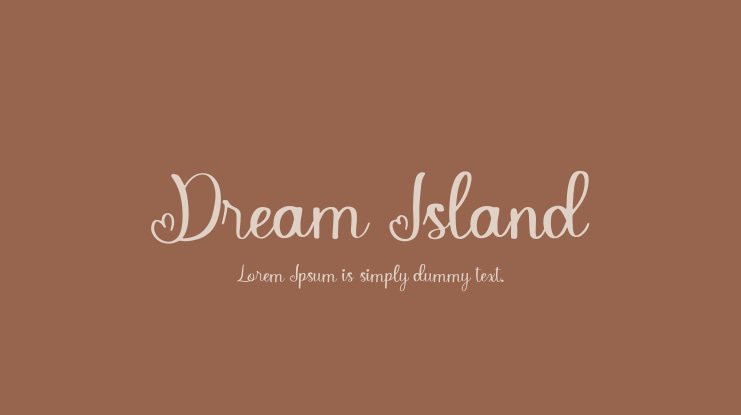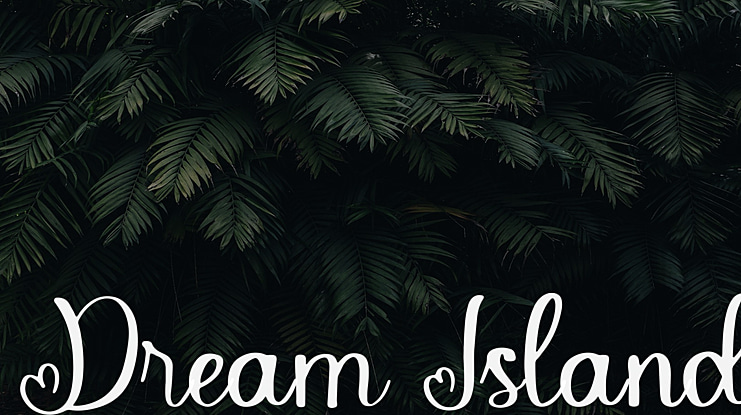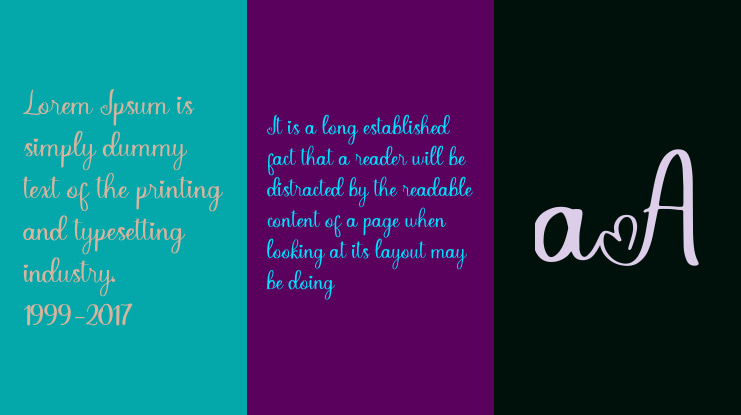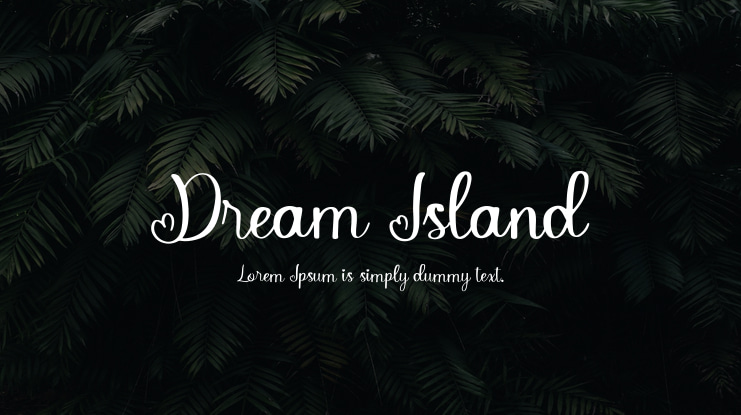
Dream Island Font
Dream Island is a chic and cursive script font that exudes elegance and class. This font was particularly crafted for those who need a beautiful and refreshing look to their designs.